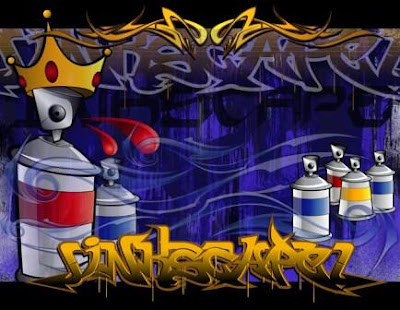
INKS CAPE HOW WE DO IT. Blue and yellow, very classic mix of color on the font. But is enough to sending the message. We see another style of letters being draw beside the main font. Is also shown one of famous tool in urban art usually used on the background, spray can. Some creative tone also play on the display, not too simple but nice, in this way, draw graffiti can be done with only letter as the main subject or accompany by other source of picture that can drive the message more clearly.